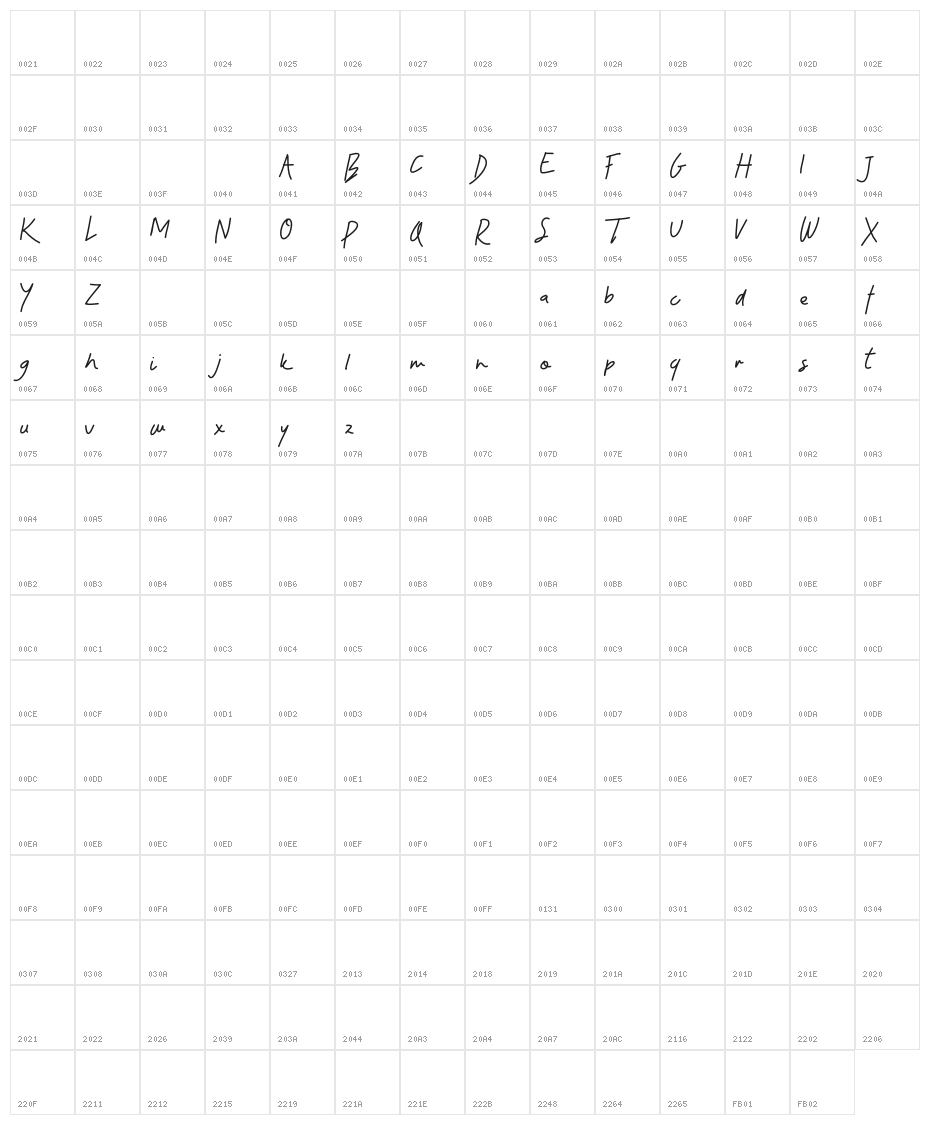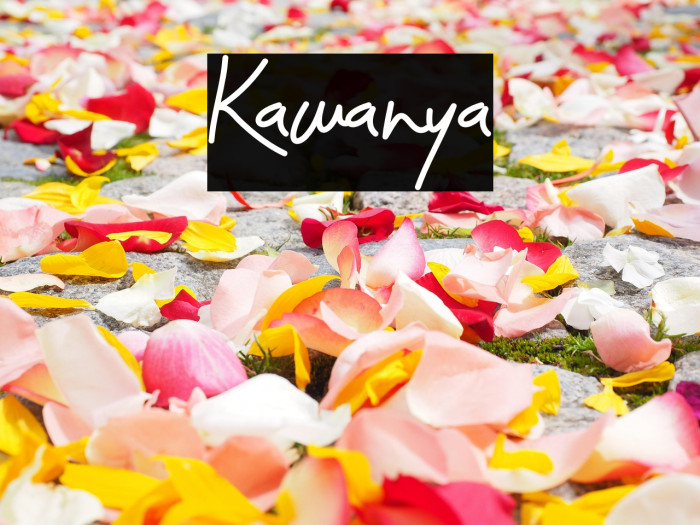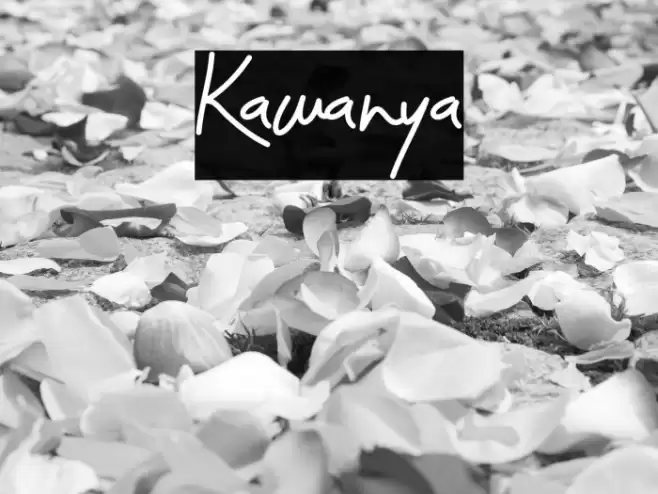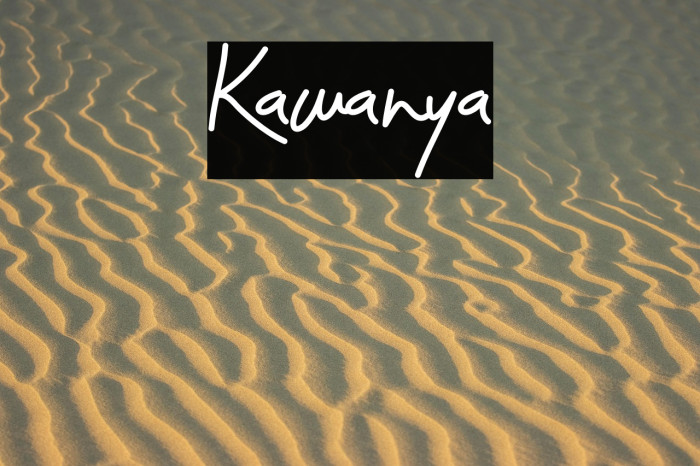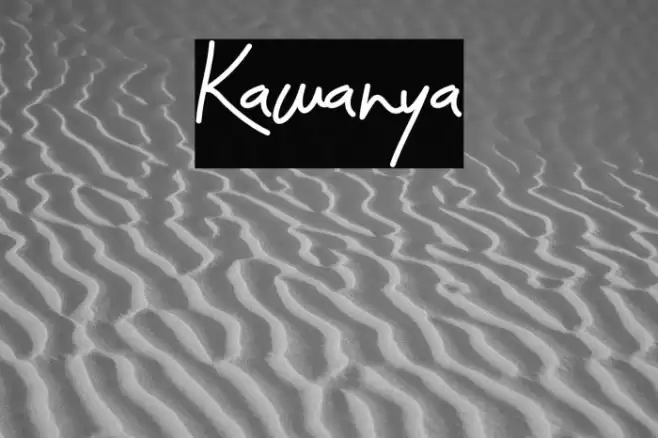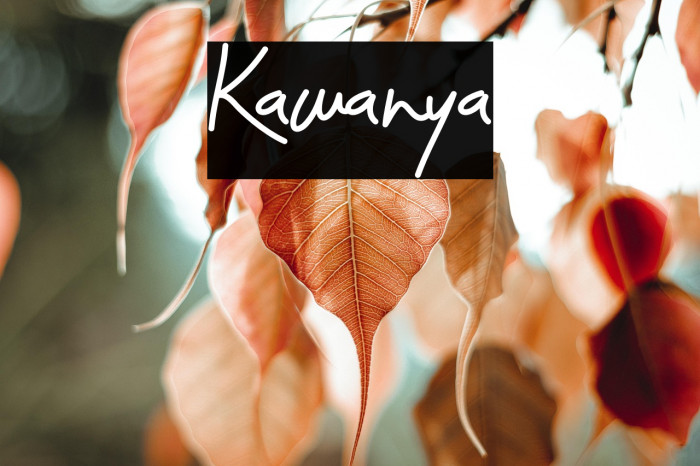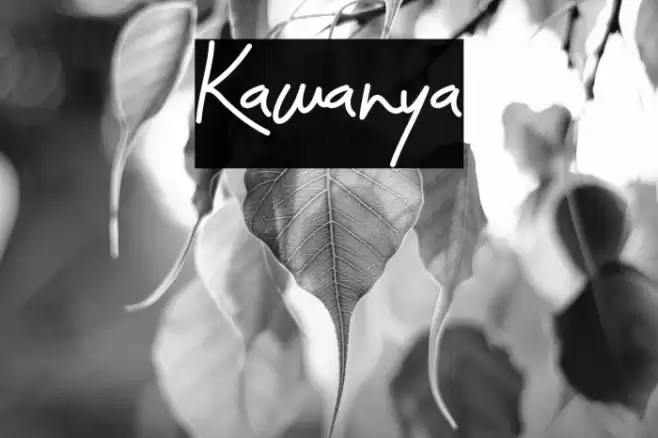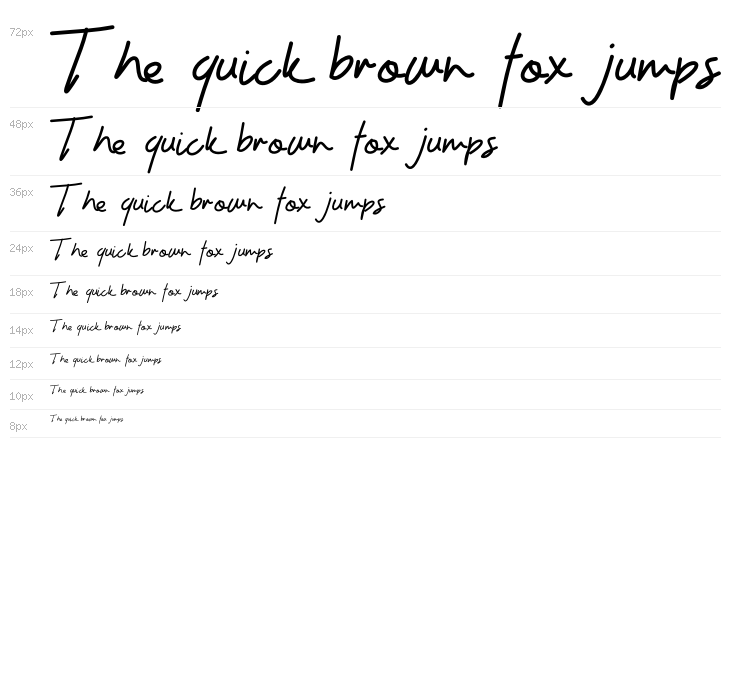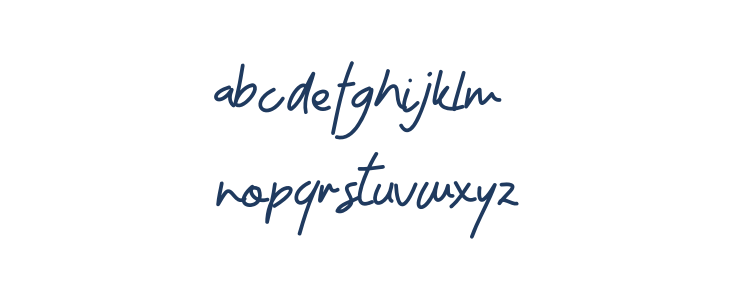
Kawanya Font
Kawanya Description
This font exudes a casual and dynamic handwritten style, characterized by its fluid and slightly irregular strokes. The letters have a natural flow, reminiscent of quick, expressive handwriting. The uppercase letters maintain a consistent height, while the lowercase letters vary slightly, adding to the informal charm. The strokes are smooth and slightly angled, giving the font a sense of movement and energy. This style is perfect for projects that require a personal touch or a creative flair, such as invitations, greeting cards, or artistic branding.
| Overall Style | Casual, Dynamic |
| Proposed Projects | Ideal for invitations, greeting cards, artistic branding, and personal projects. |